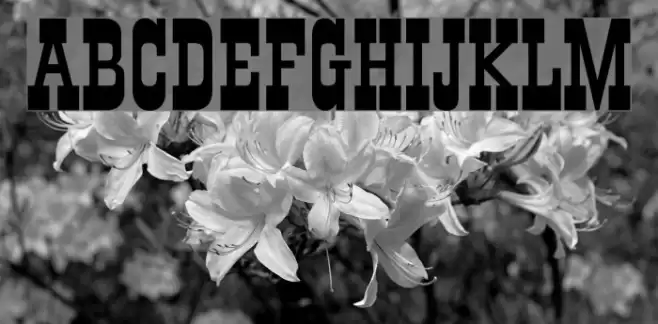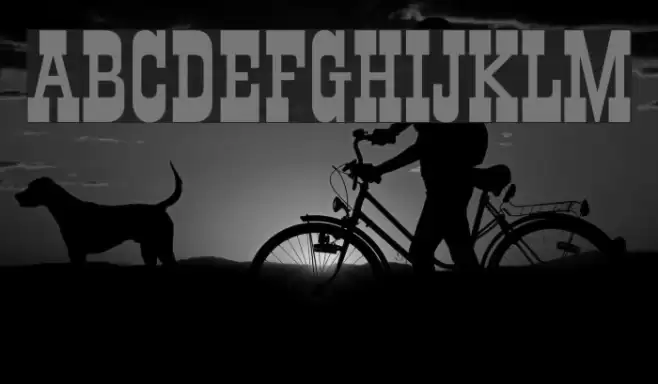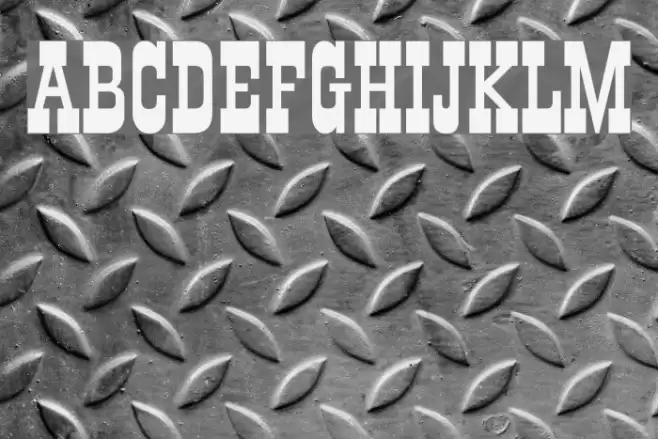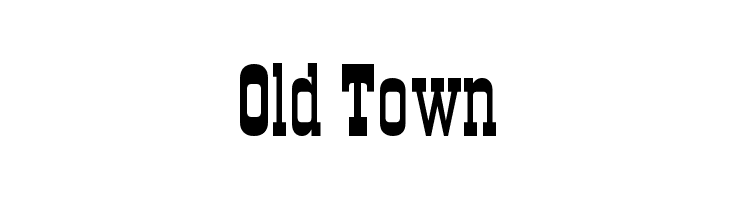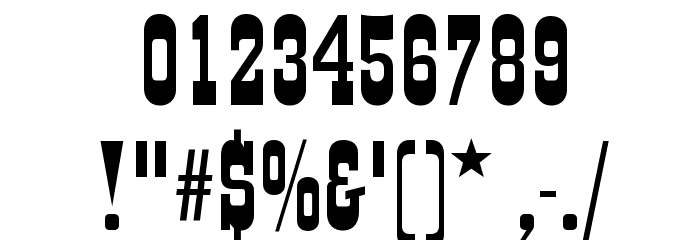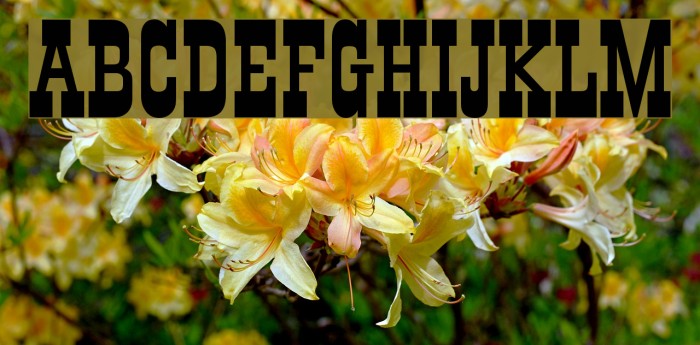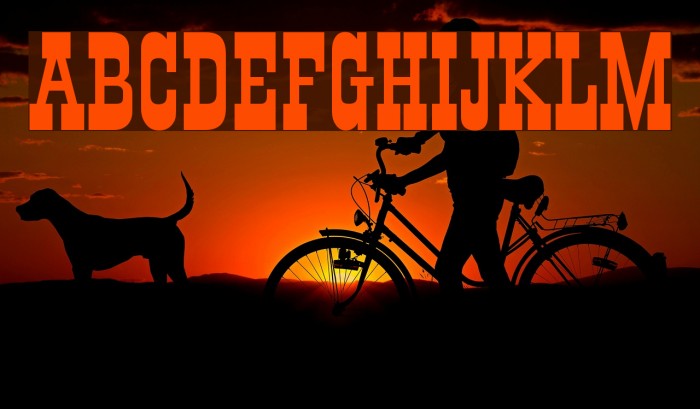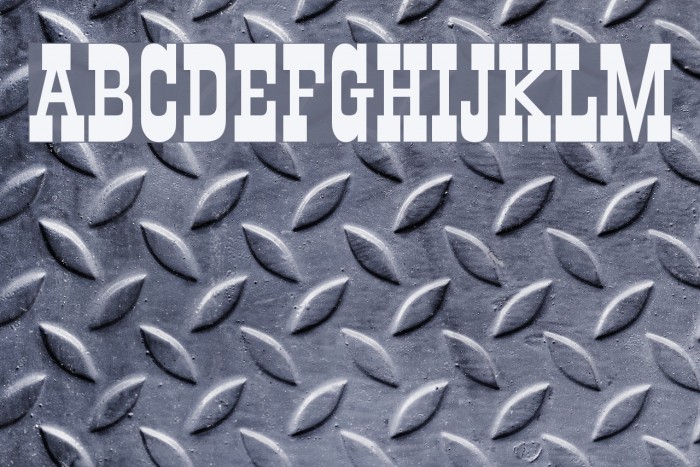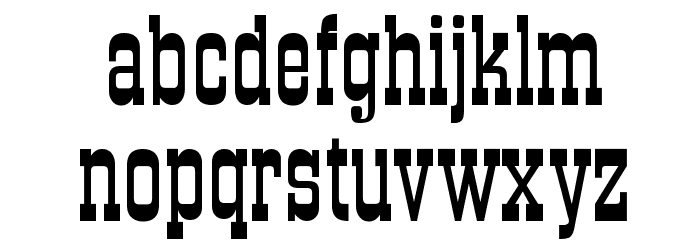
Old Town Font
Old Town Description
This font features a bold, slab serif style with strong, block-like serifs that give it a commanding presence. The uppercase letters are robust and impactful, while the lowercase letters maintain a consistent weight, ensuring readability. The numerals are equally bold, matching the overall aesthetic of the font. Special characters are designed with the same attention to detail, ensuring they integrate seamlessly with the rest of the character set. The font's design is reminiscent of vintage Western typography, making it ideal for projects that require a touch of nostalgia or a bold statement.
A bold, slab serif font with a vintage Western aesthetic from Western fonts.
- Proposed Projects: Perfect for posters, signage, branding, and any design requiring a vintage or Western theme.
- Overall Style: Vintage